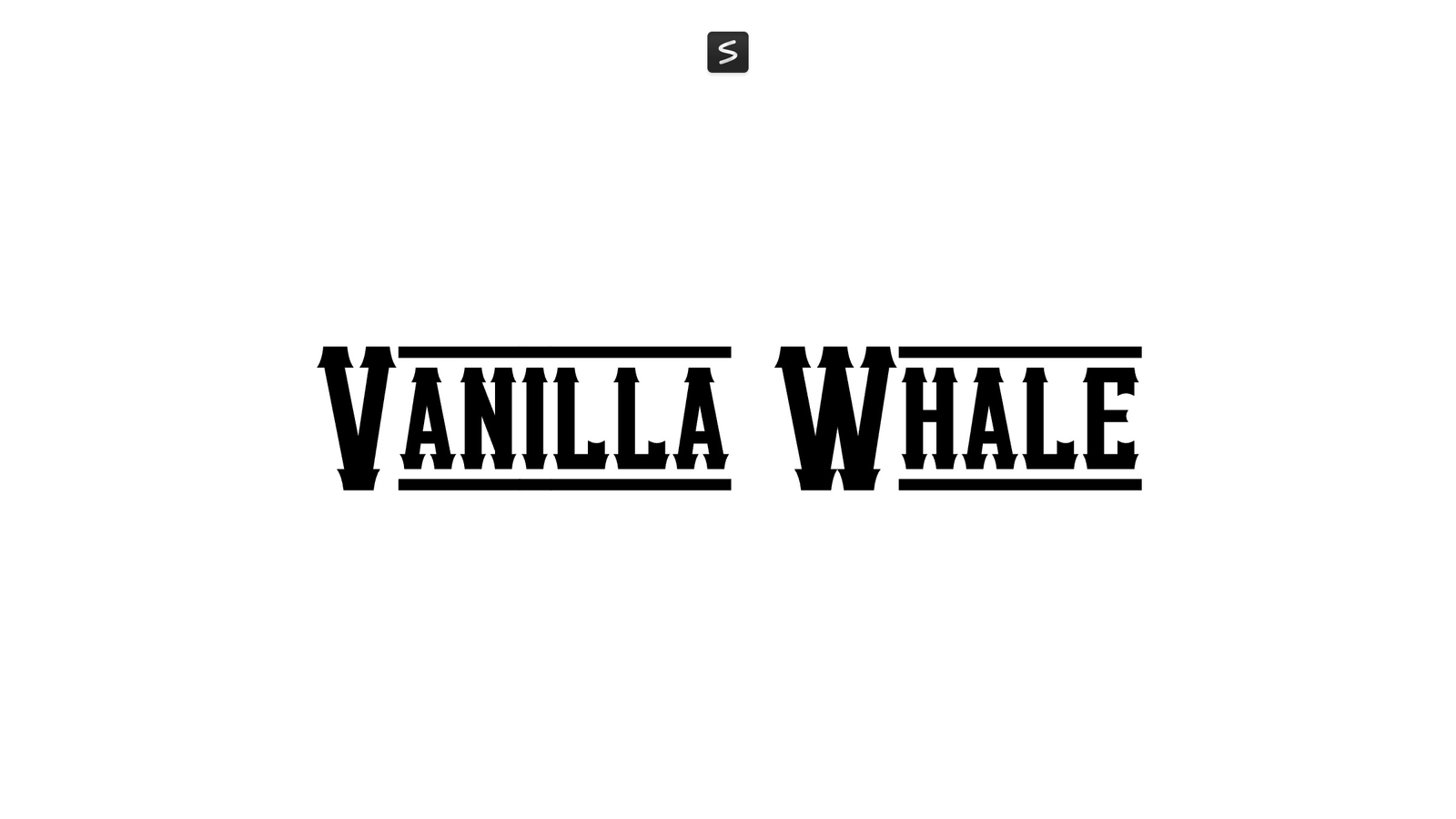
Vanilla Whale Font
Vanilla Whale by Typodermic Fonts is a narrow slab serif display font with a bold and rugged charm. Its rustic curves and western-style serifs bring a sense of vintage elegance and confident character to your designs. This typeface stands out with its unique small-caps feature and the option to use a capital letter at the end of a word for an eye-catching effect.
Vanilla Whale is perfect for designs that need a touch of Western flair, such as posters, branding, or signage. It supports most Latin-based European languages, making it versatile for various projects. Add a dose of gruff sophistication to your messages with this striking font!